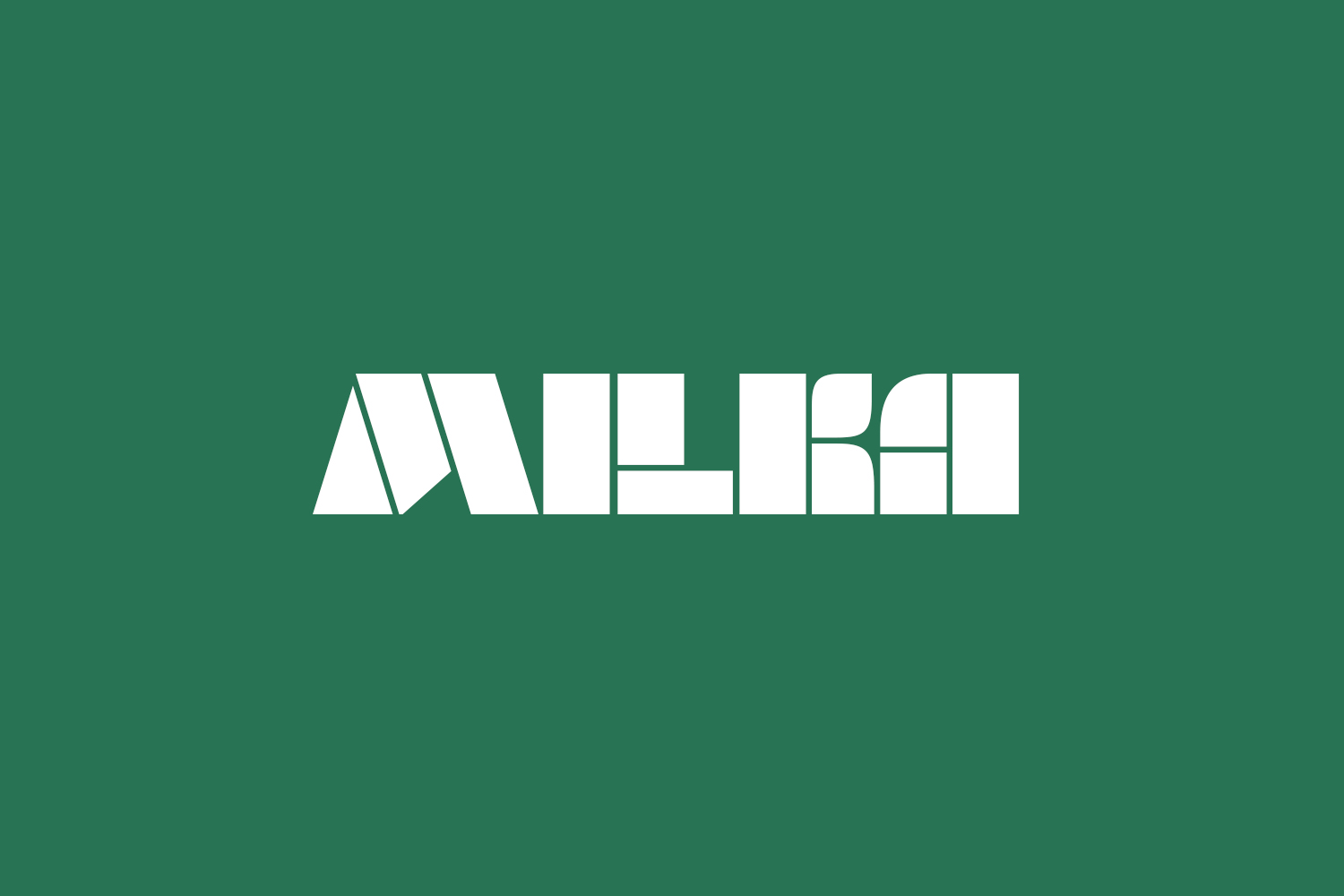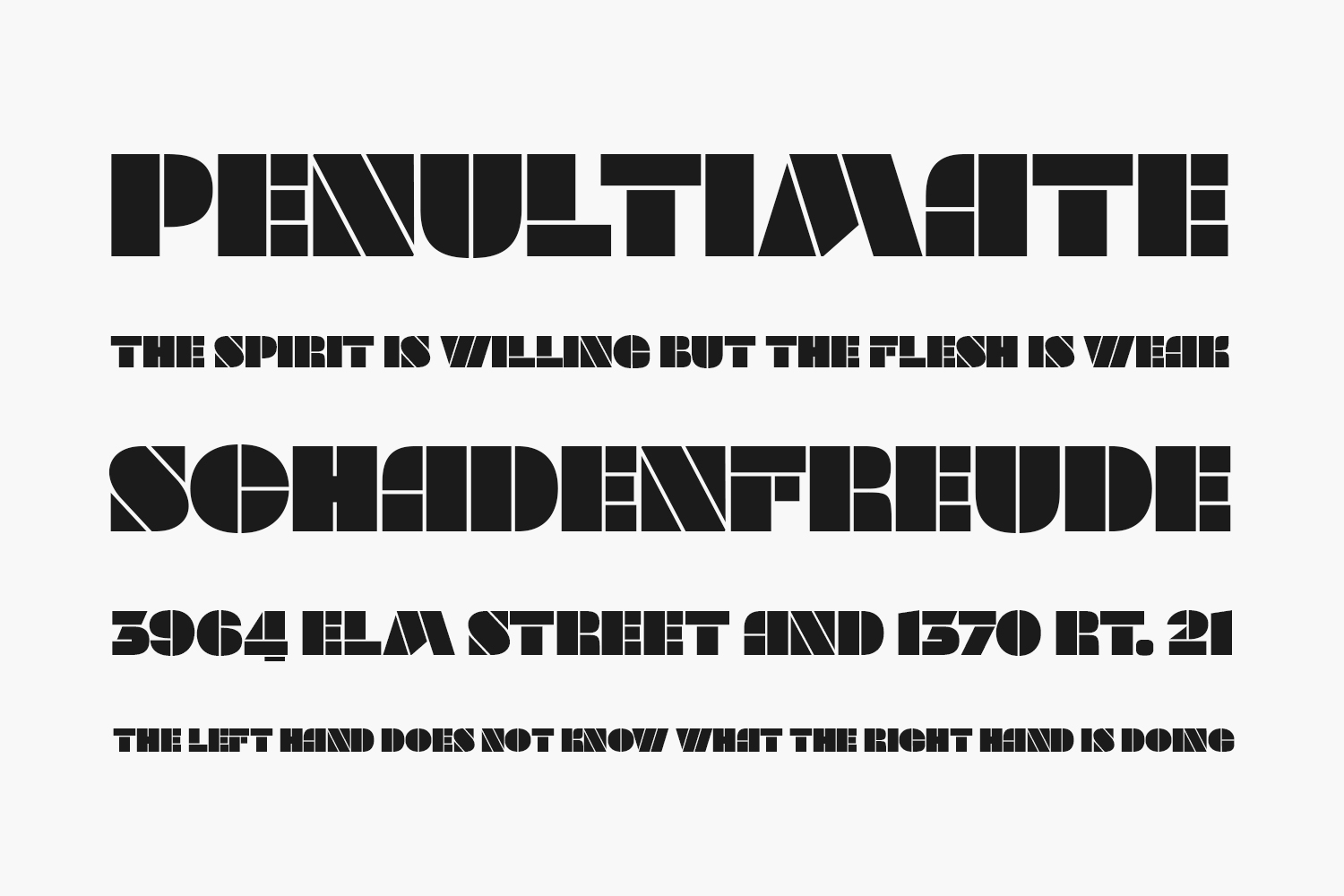
Milka Free Font Family is an 8-style stencil font family created by a team of designers born within the span of almost 70 years. It is a digital expansion on an alphabet designed in 1979 by the famous Bulgarian artist Milka Peikova.
The basic Milka font is a clean stencil design, while the Aged, Baked, Brittle, Crunchy, Dry and Soft styles are inspired by stencil and letterpress techniques and expand the usefulness by adding various degrees of warmth or roughness. The Milka font family has extensive Latin, Cyrillic and Greek character set support including localized forms for Russian and Bulgarian as well as numerous OpenType features.
Since 2014, Berlin-based Bulgarian type designer Botio Nikoltchev has been working with three Bulgarian female designers (the original designer Milka Peikova, who passed away in 2016 at the age of 96, and with Ani Petrova and Anelia Pashova, both from a young generation), as well as with Berlin-based Adam Twardoch and Andreas Eigendorf to create a modern revival of Ms Peikova’s inspiring stencil alphabet. Milka Peikova (1919-2016) was one of Bulgaria’s most famous female artists whose work has influenced several generations of Bulgarian designers. During her impressive career spanning almost seven decades, she created paintings, posters, book covers, textile designs and alphabets, both individually and together with her husband Georgi Kovachev-Grishata (1920–2012).